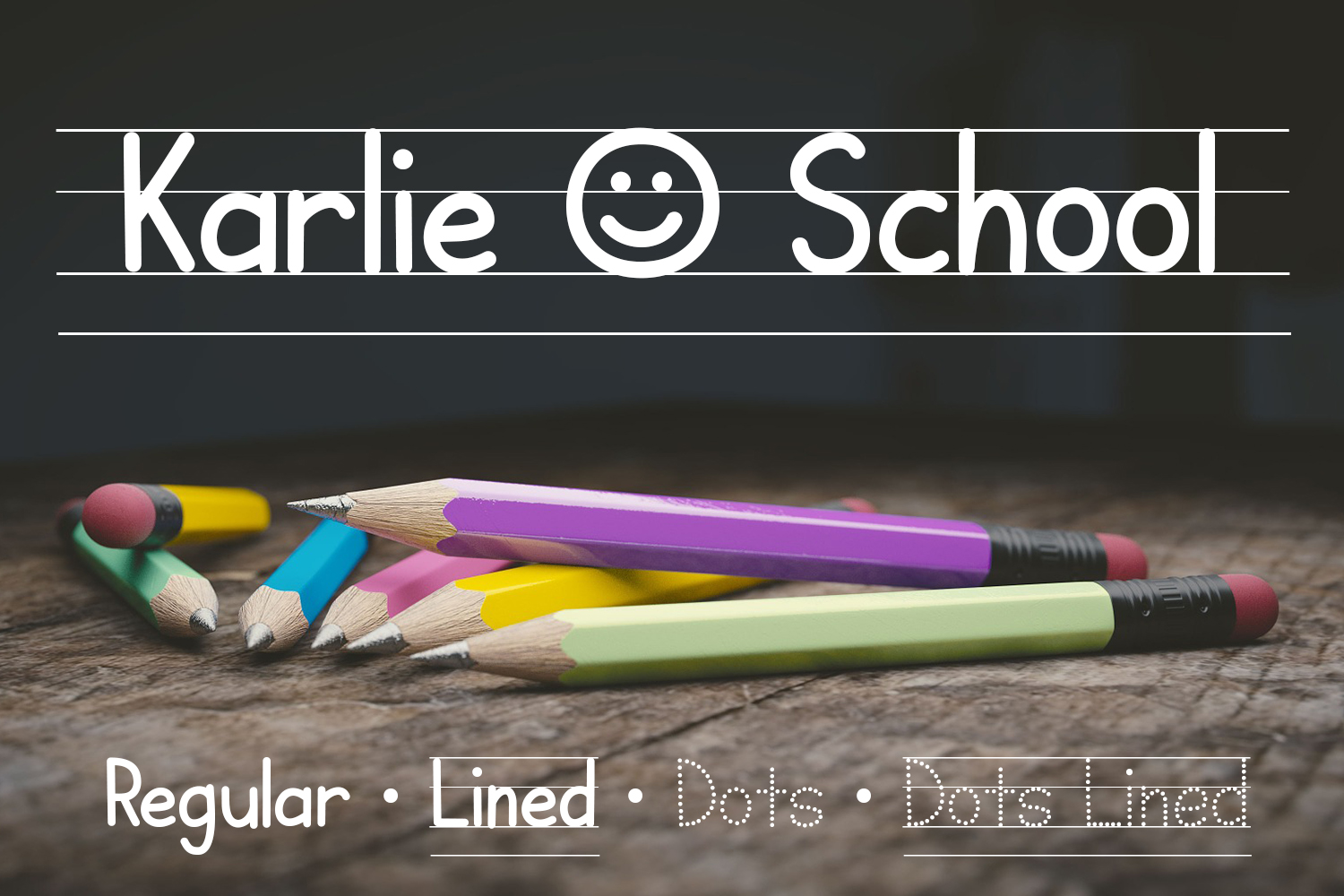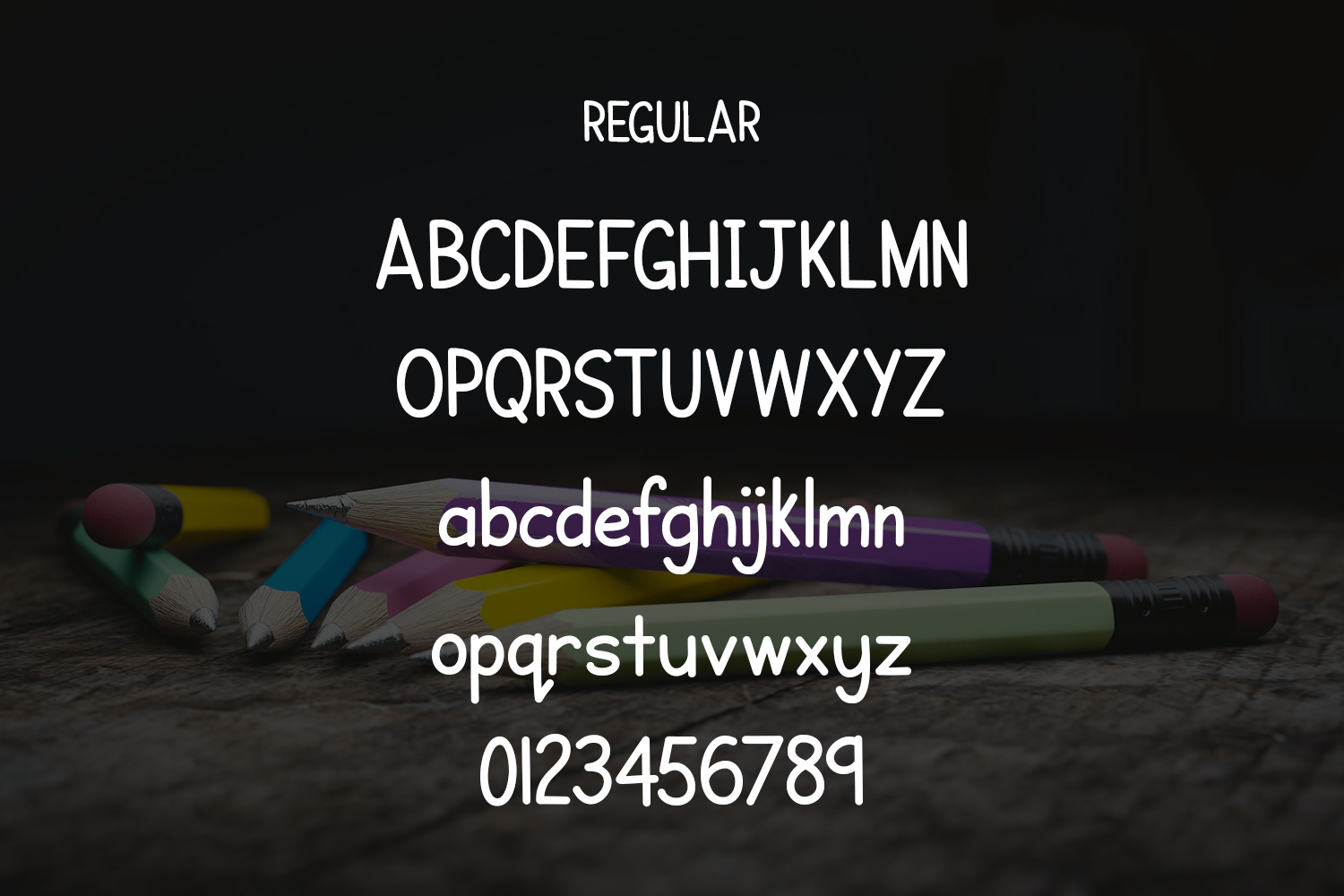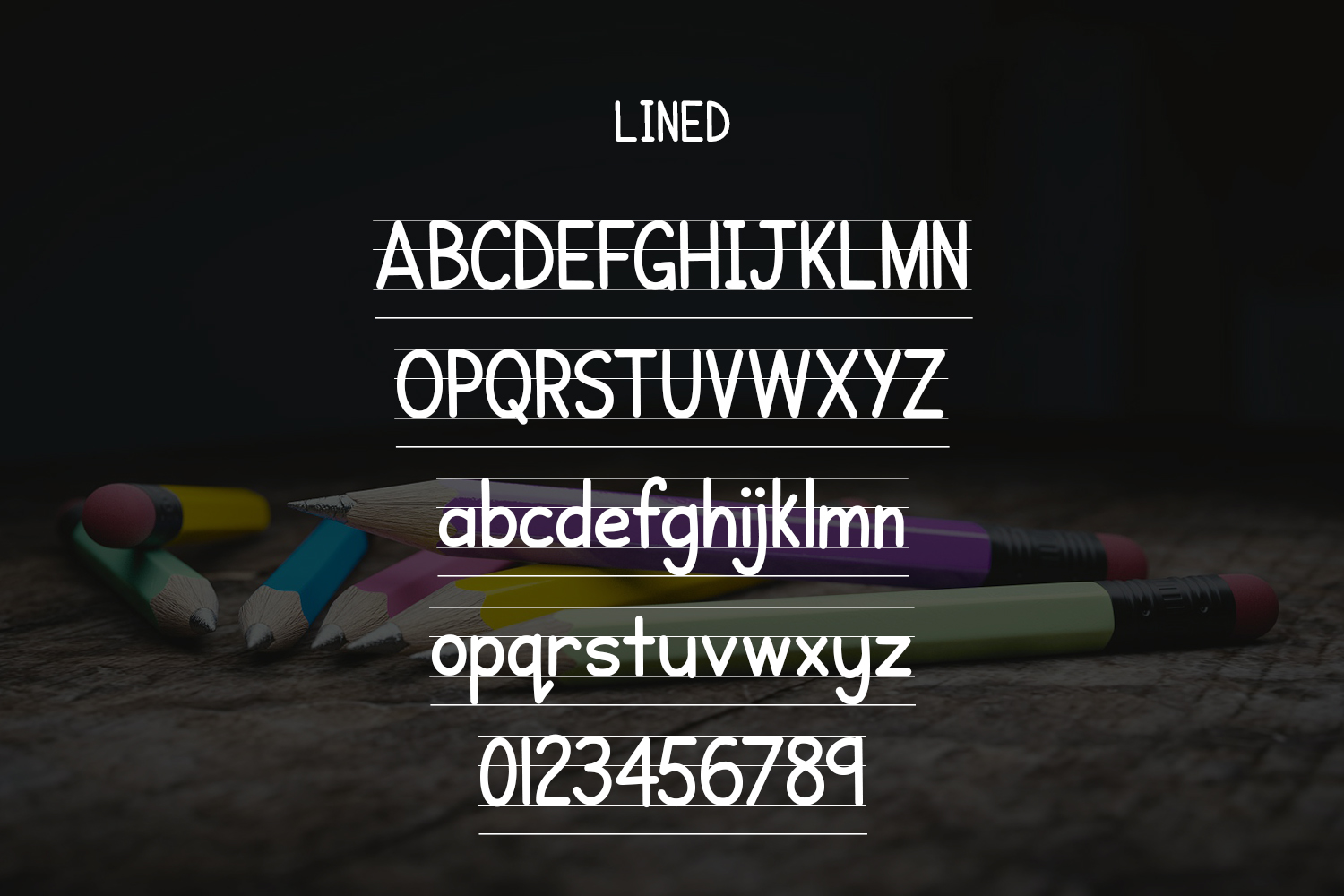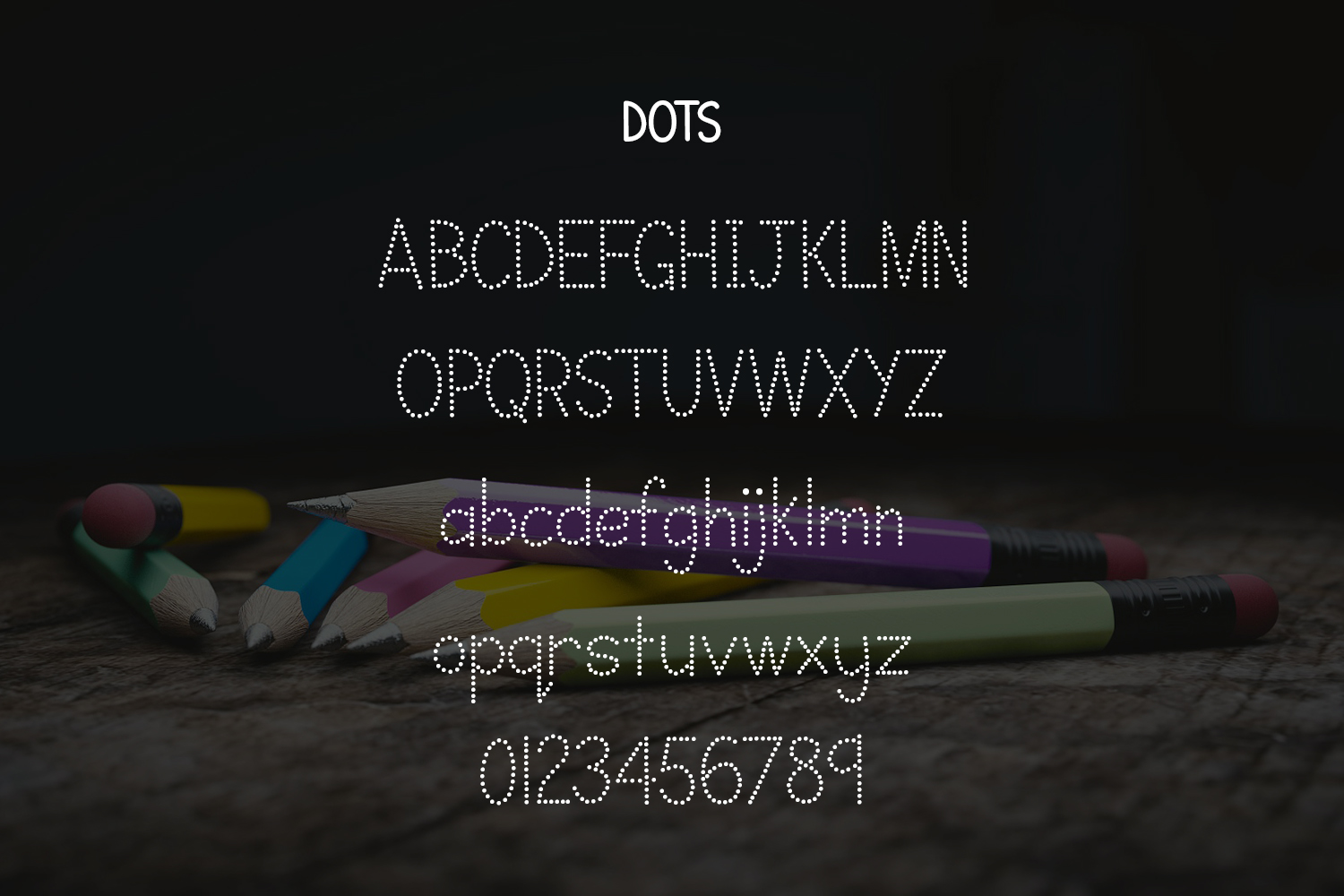
Karlie School Font: A Cute & Printable Handwriting Font for Kids!
About the Karlie School Font
Unleash your creativity with Karlie School Font, a versatile font perfect for a wide range of applications. Karlie School is made for teaching children how to write. You can use the basic handwriting font, the dotted tracing font, or use the versions with built-in guidelines to make creating worksheets easier! Karlie School was designed especially for one of the typographer’s family members, a teacher who couldn’t find any fonts specific to her needs when teaching her students to write.
Karlie School’s playful yet structured nature makes it ideal for children’s books, educational materials, and playful branding projects targeting a younger audience. It works exceptionally well in headings, short text blocks, and illustrative elements within worksheets or activity books. However, its design isn’t optimized for large bodies of text or UI elements; using it for lengthy paragraphs would prove cumbersome for readers.
Consider pairing Karlie School with a clean sans-serif like Open Sans for body text to provide contrast and readability. For a more playful approach, a rounded geometric sans-serif such as Poppins could complement its friendly feel. Alternatively, a delicate script font can add a touch of elegance to headers using Karlie School.
The font exudes a friendly, approachable, and slightly whimsical personality, perfect for projects needing a touch of childhood charm without sacrificing legibility in its intended applications.
Karlie School Font Usage Examples
Karlie School Font Example